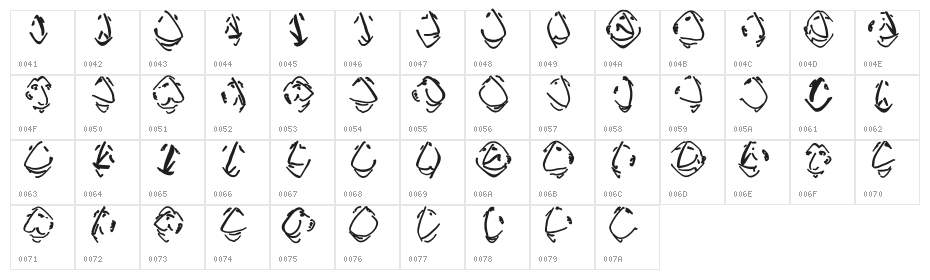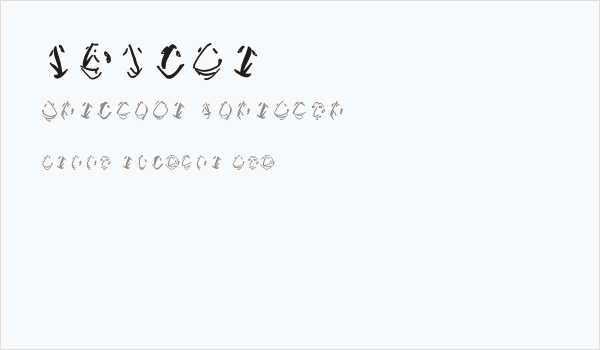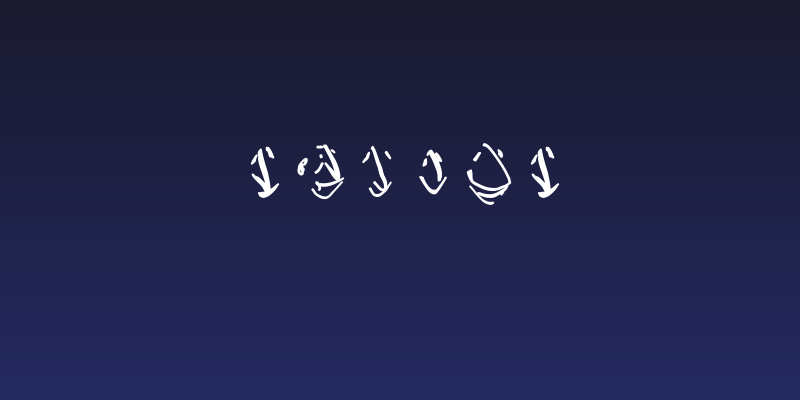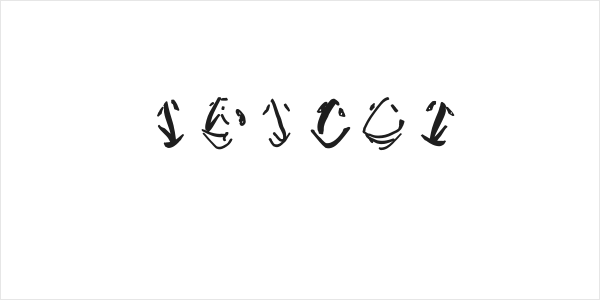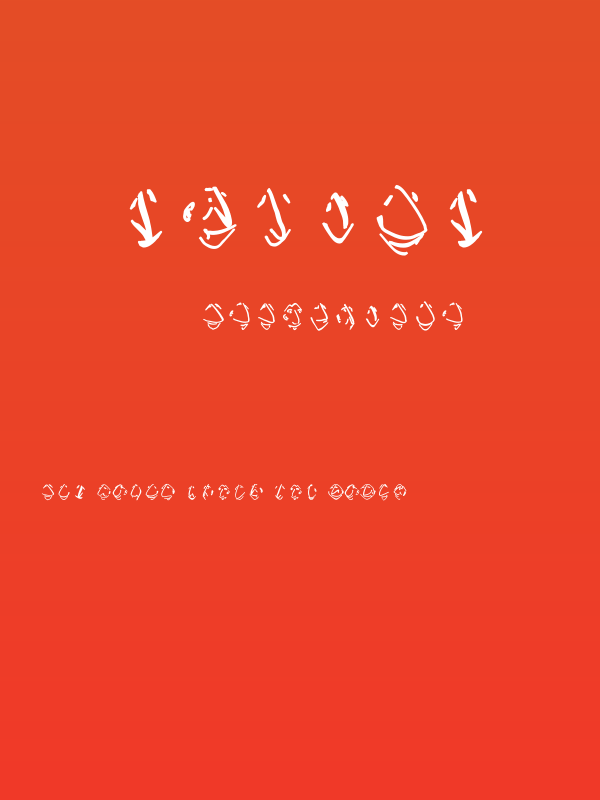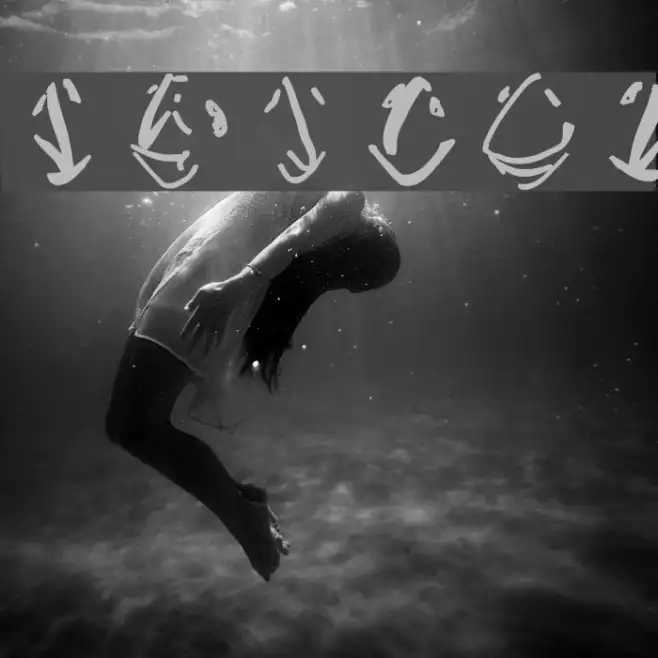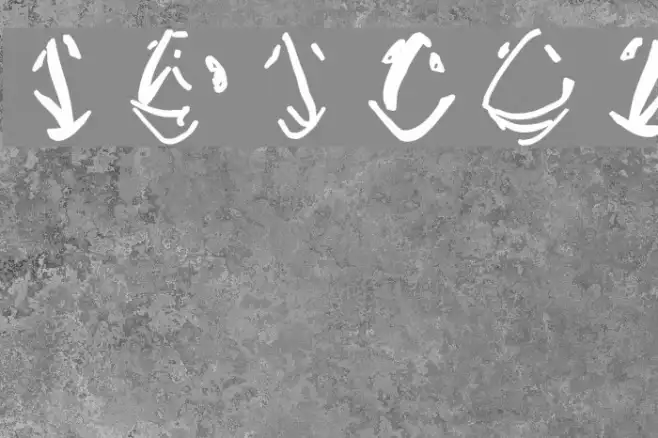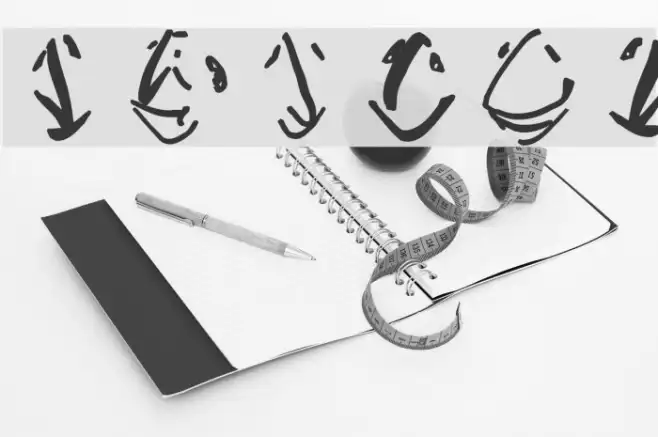
EnFace Font
EnFace Description
This font features a unique and playful design, characterized by its abstract, face-like shapes that form each letter and symbol. The strokes are bold and expressive, giving the font a hand-drawn, artistic feel. Each character is distinct, with varying line thicknesses and whimsical curves that create a sense of movement and personality. The font's style is reminiscent of doodles or sketches, making it stand out as a creative and unconventional choice. Its decorative nature makes it suitable for projects that require a touch of humor or artistic flair.
| Use Case | Logos, Posters, Creative projects |
| Proposed Projects | Ideal for children's books, creative posters, or branding that requires a whimsical touch. |